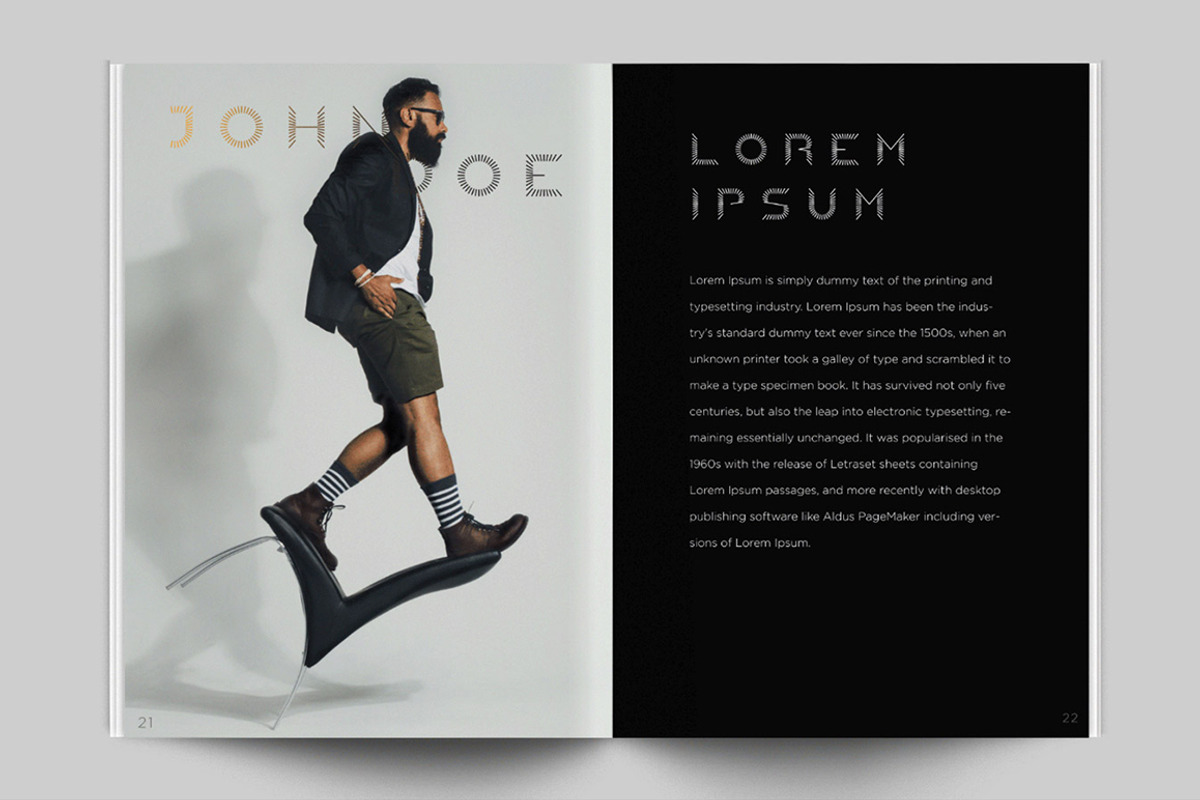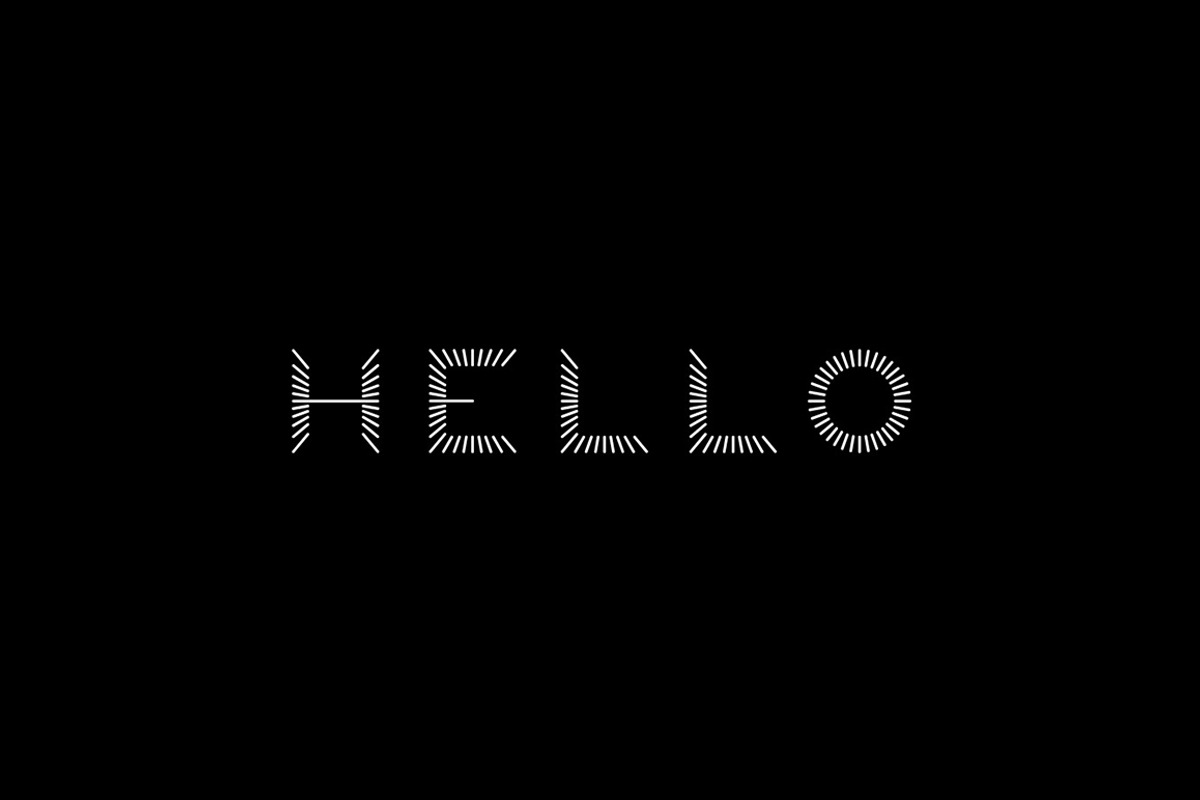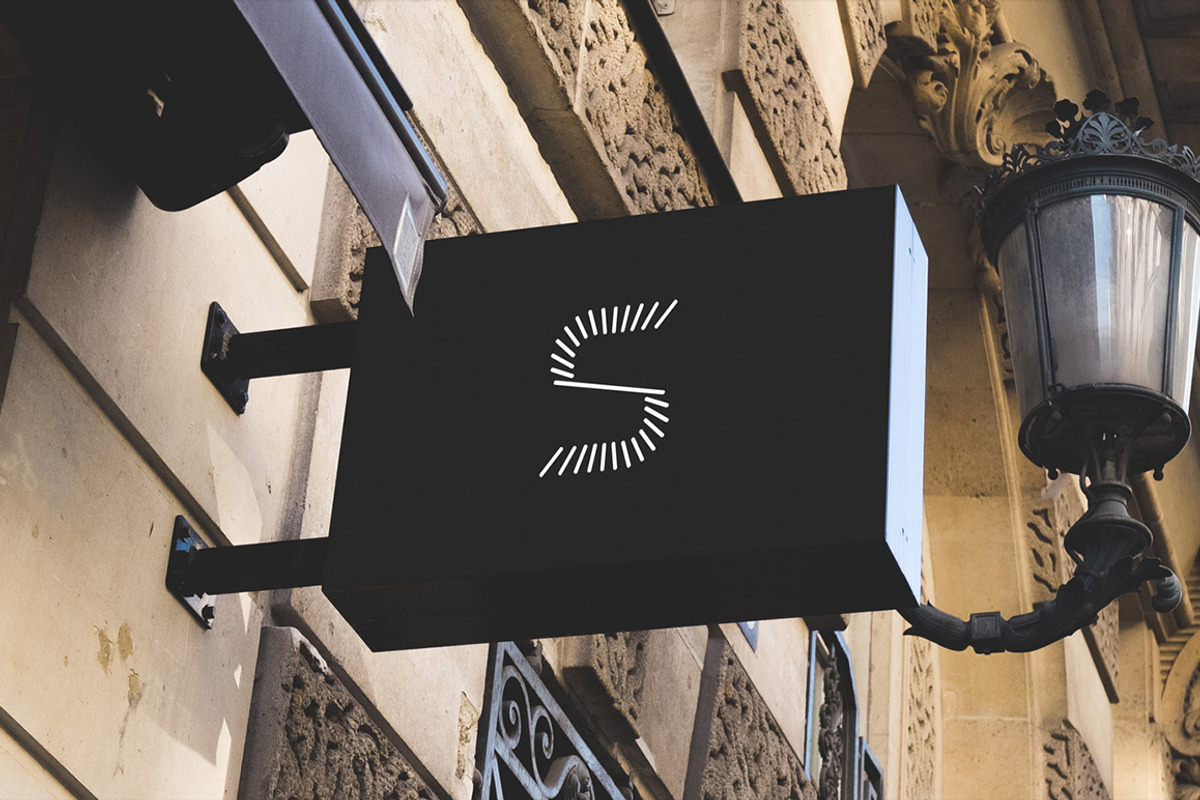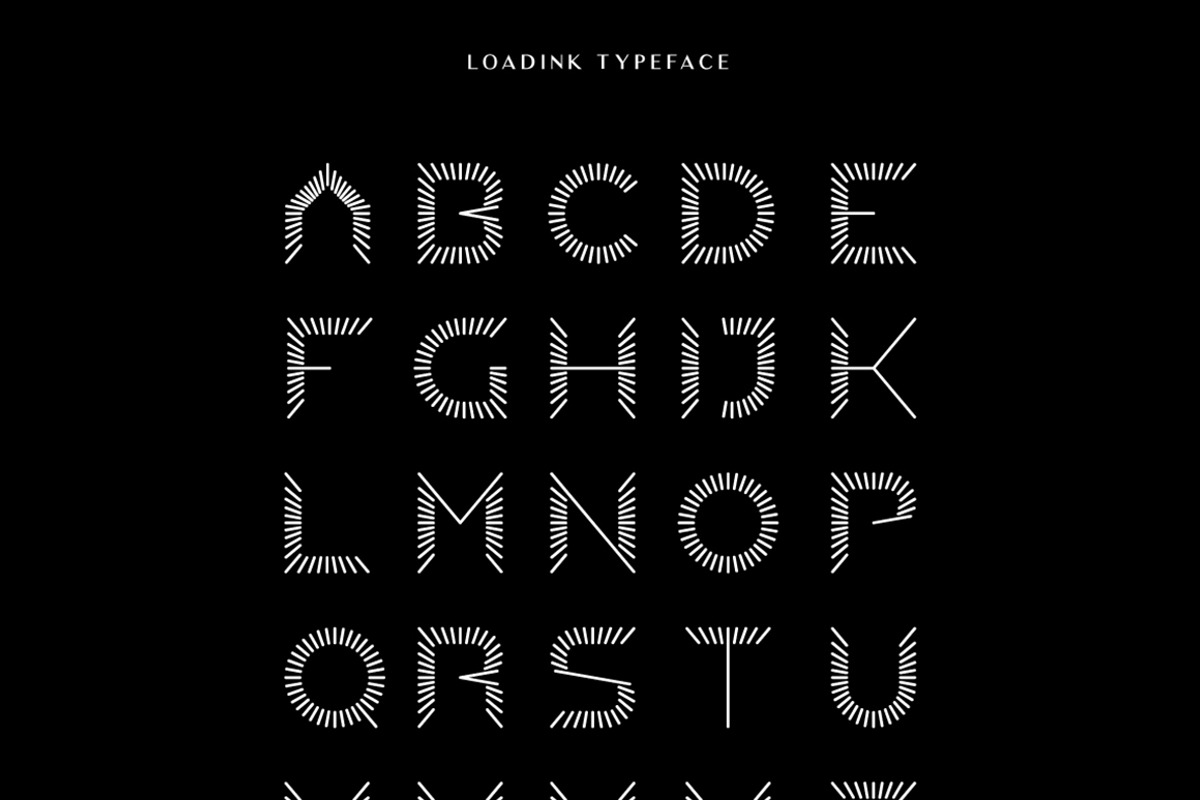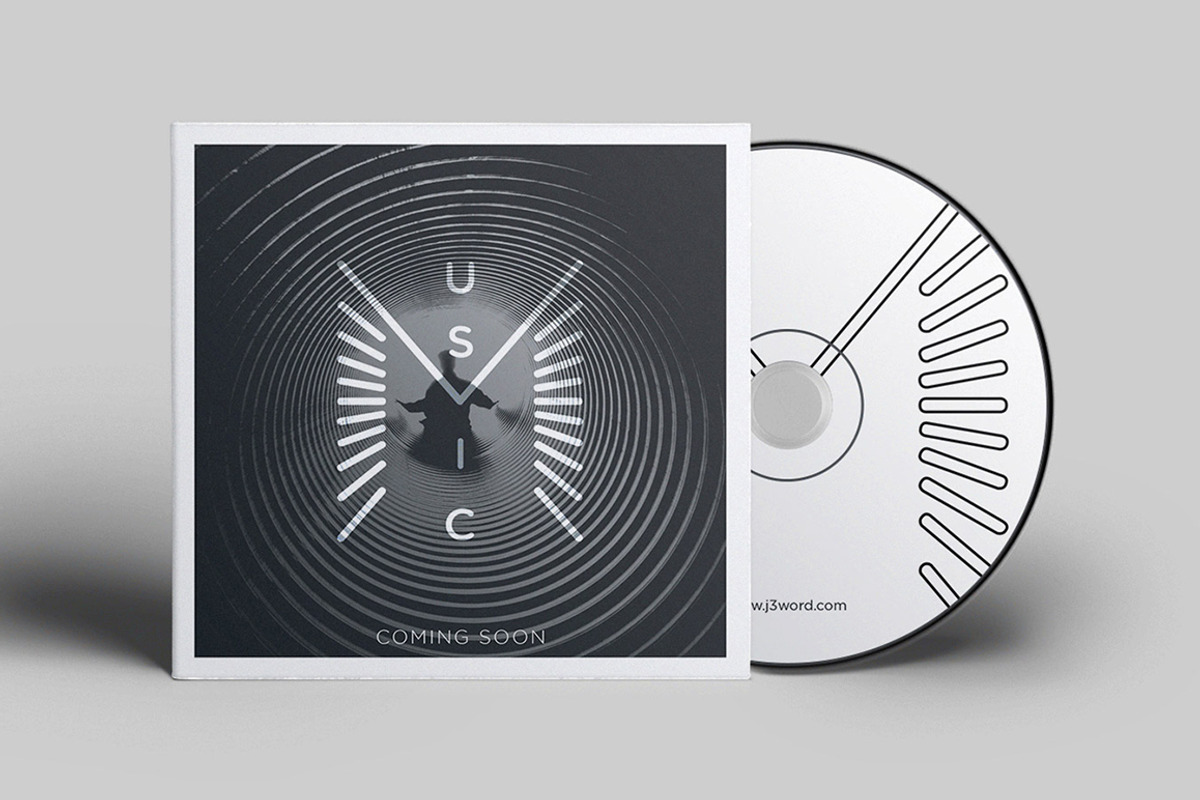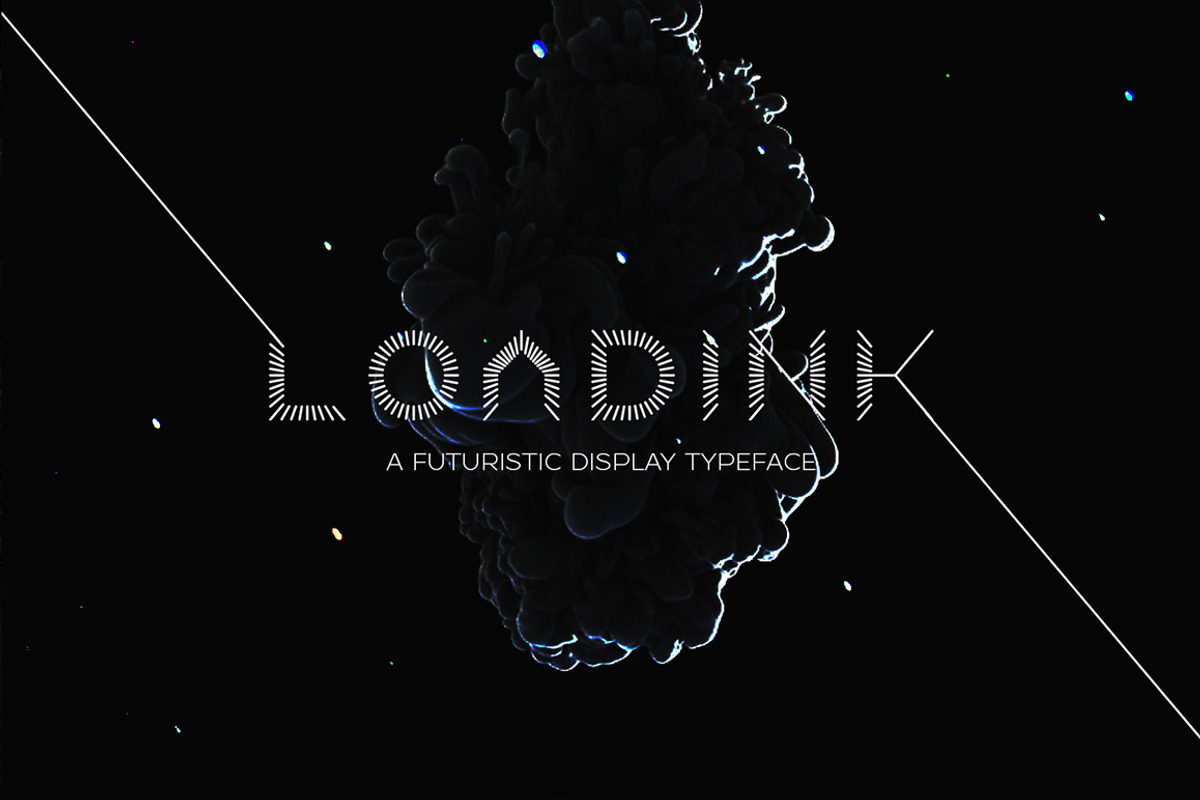
LOADINK Typeface
LOADINK Typeface by j3world is a font selected for branding, posters, packaging, typography.
- Alternatives for M,W alphabets
Why LOADINK Typeface is worth a look
LOADINK Typeface by j3world fits naturally into Branding, posters, packaging, typography.